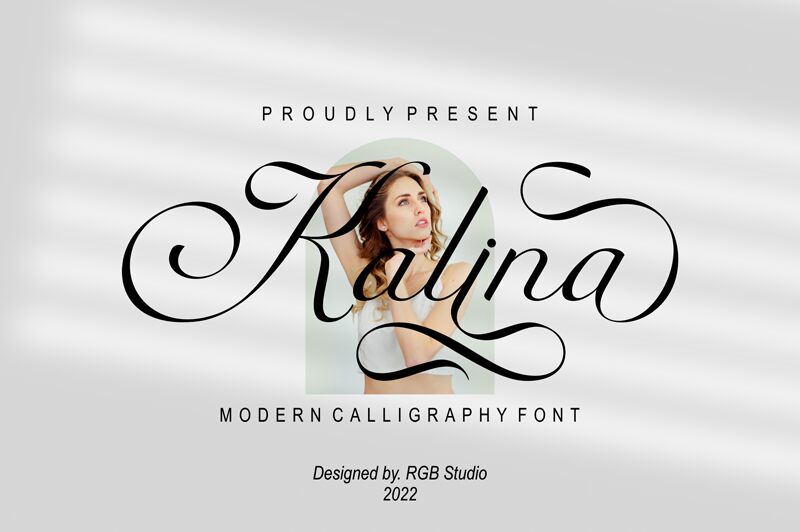
Kalina
Introducing, Kalina Calligraphy is a unique calligraphy font, created to complement your designs and make your designs beautiful and more attractive.
Kalina Calligraphy is very well made, with very neat strokes that add a luxurious impression, there are many lowercase Alternate letters that you can use to enhance your design, this is really charming, please try it yourself.